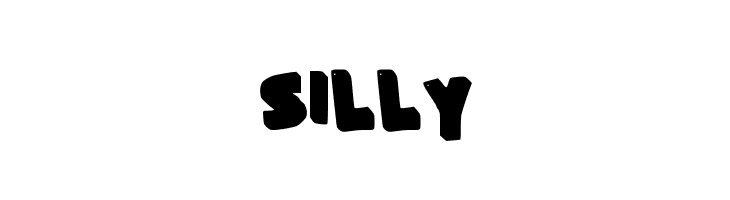
A playful, hand-drawn font with exaggerated, uneven strokes and a whimsical flair.
A dynamic and elegant script font with flowing, cursive letterforms.
( Fonts by Sos Sosowski )
A playful, cartoonish font with bold, irregular shapes and a hand-drawn feel.
( Fonts by holdsworthdesign )
A playful, whimsical script font with a handwritten style.
A playful and elegant handwritten font with fluid, connected letterforms.
( Fonts by Abo Daniel Studio )
A bold, flowing script font with elegant, connected characters.
A bold, blocky font with a vintage yet modern style, perfect for headlines.
A playful handwritten font with a casual and friendly style.